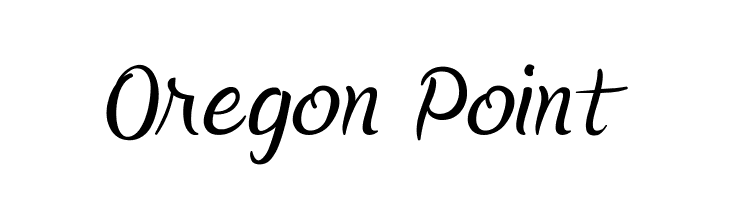
A lively and expressive script font with flowing, cursive letterforms.
A playful and elegant script font with decorative loops and a hand-drawn aesthetic.
A playful, handwritten-style font with a modern and clean appearance.
A dynamic and elegant script font with flowing, cursive letterforms.
A bold, distressed font with a rugged, graffiti-like appearance.
A playful, handwritten font with a slight slant and smooth curves.
A bold, brush-style font with sharp, dynamic strokes.
A modern serif font with elegant, elongated serifs and a sophisticated style.
A bold, expanded italic font with smooth curves and a dynamic style.
设计师偏爱 barcelona Regular, AlmostThere, UNIQUE VINTAGE, Oregon Point and WCWunderbachPaintBta,因为其造型干净、适用范围广—— 从品牌识别到落地页、海报都能胜任。